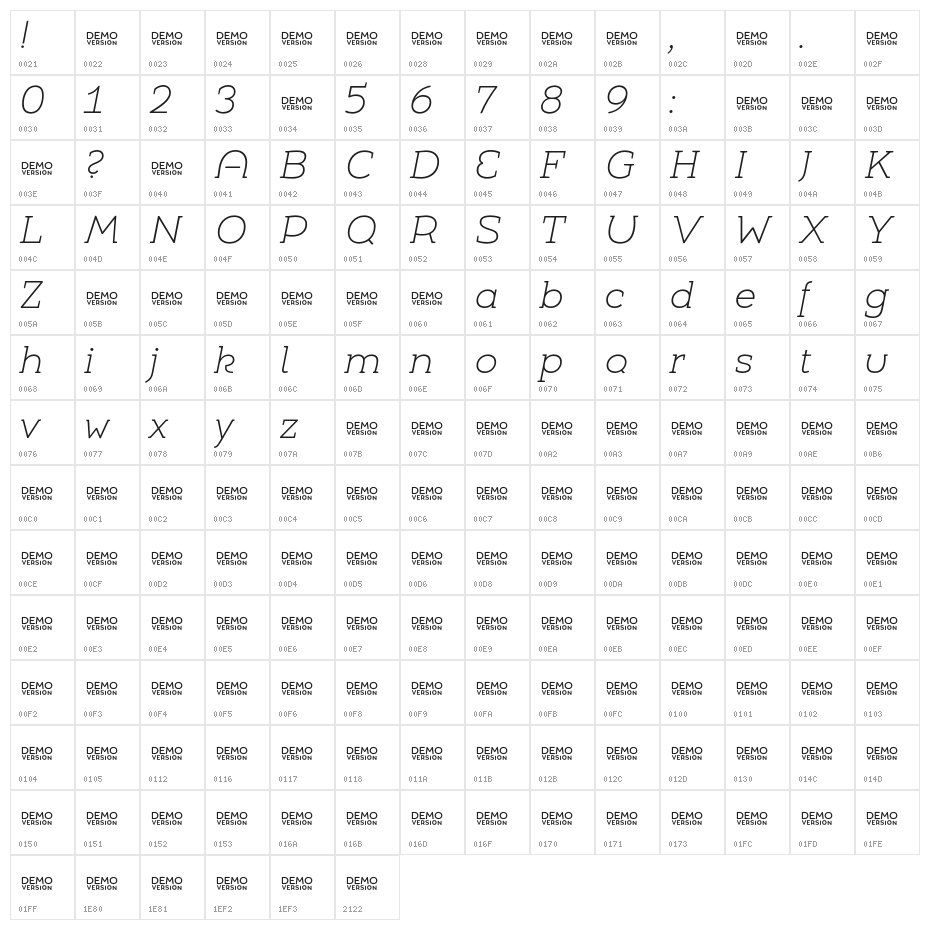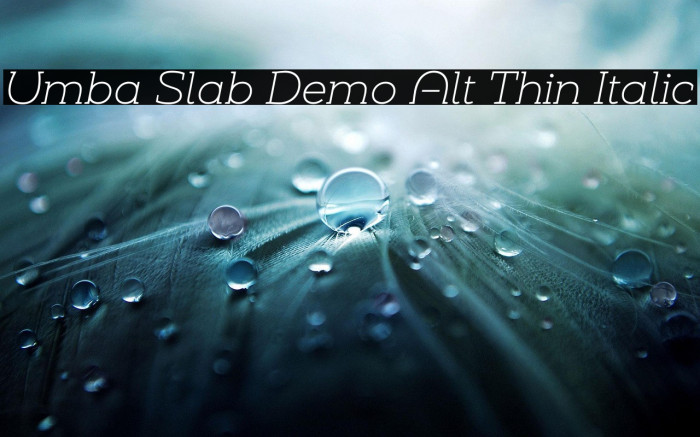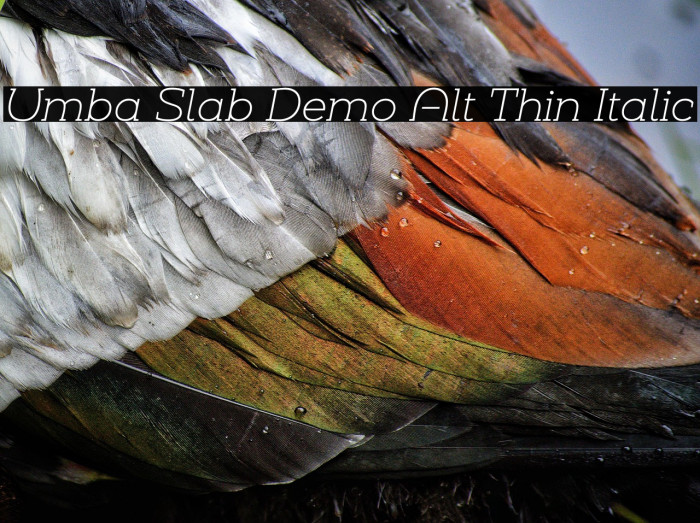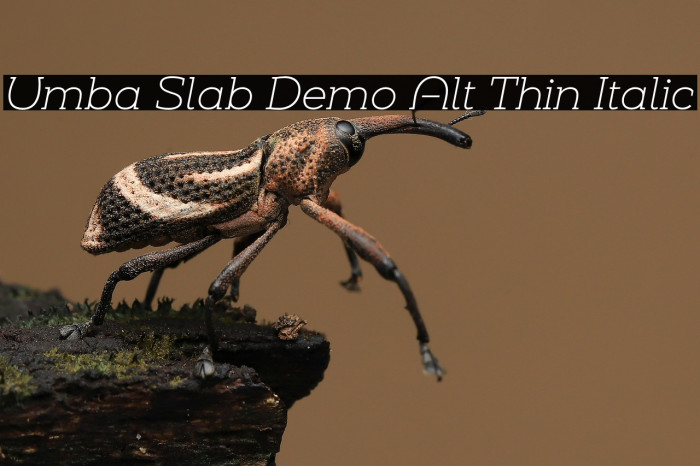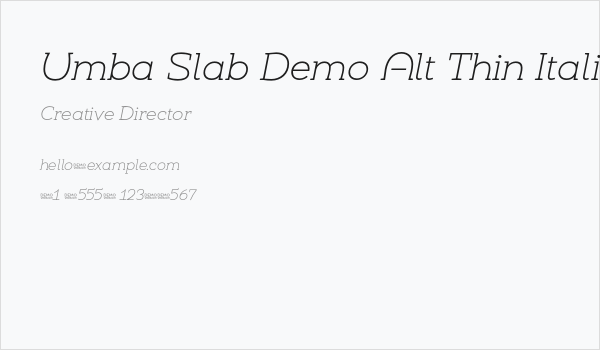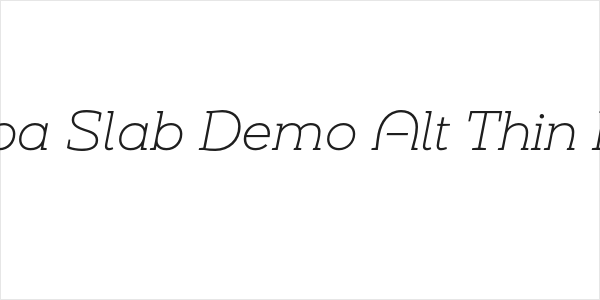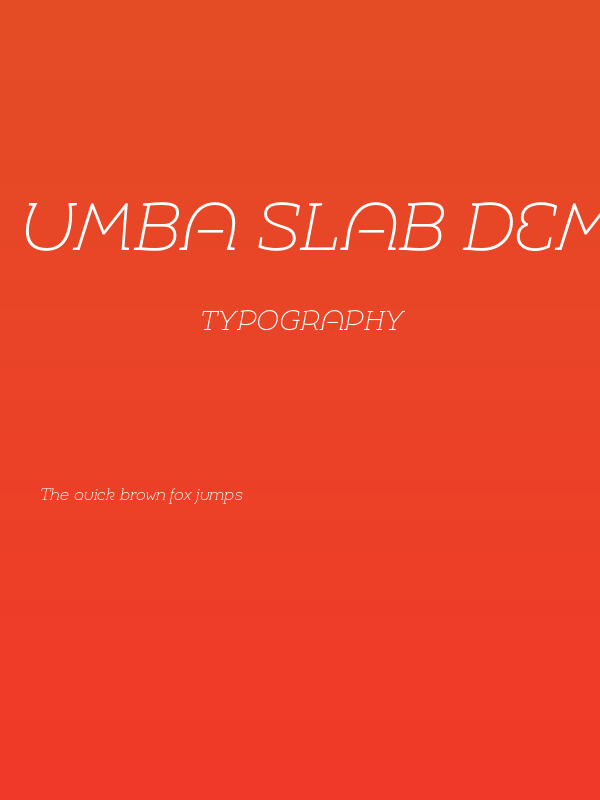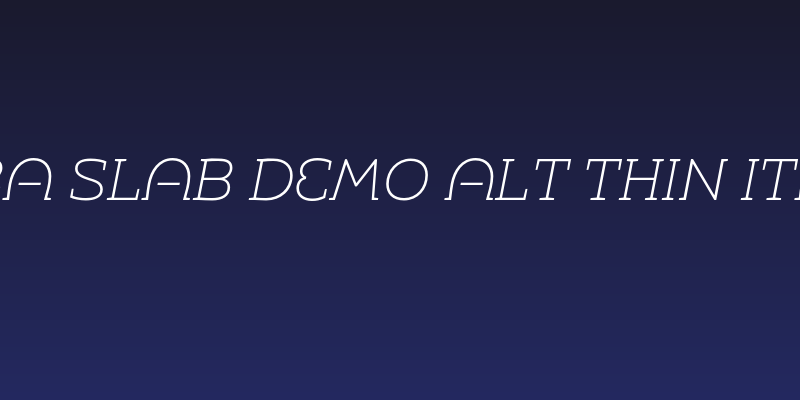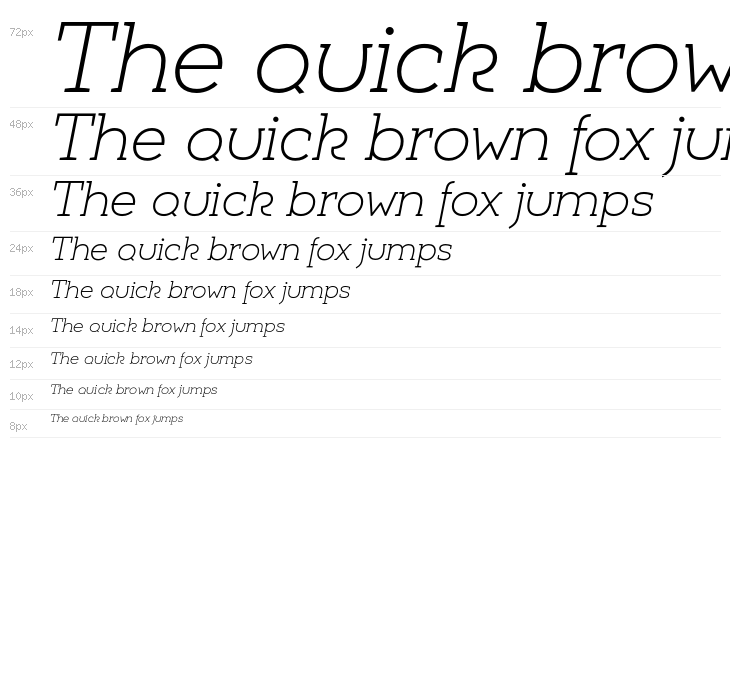
Umba Slab Demo Alt Thin Italic Font
Umba Slab Demo Alt Thin Italic Description
This font features a sleek and modern design with a thin, elegant structure. The italic style adds a dynamic and sophisticated touch, making it suitable for a variety of creative applications. Its slab serif elements provide a subtle yet distinct character, enhancing readability while maintaining a stylish appearance. The font's clean lines and balanced proportions make it versatile for both digital and print media. The numbers and special characters are crafted with the same attention to detail, ensuring consistency across all elements. This font is ideal for projects that require a refined and contemporary aesthetic.